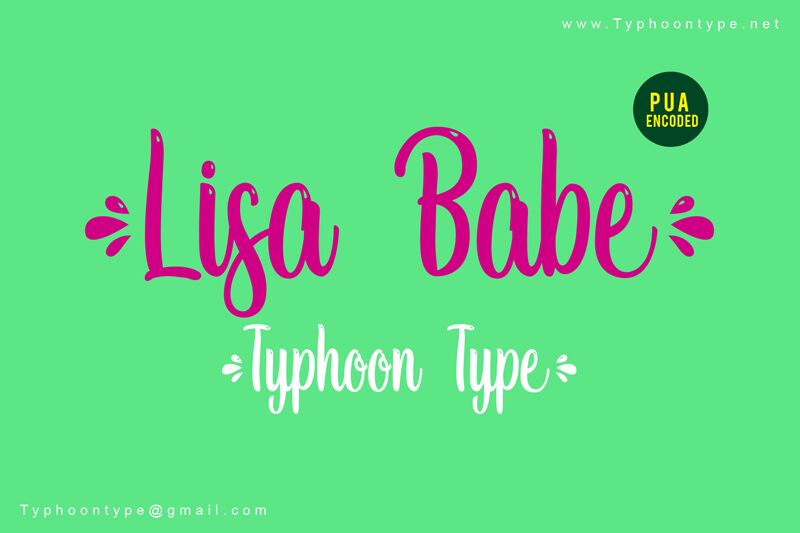
Lisa Babe font is a cute script typeface designed by Typhoon Type - Suthi Srisopha.
Type ( before word to get beginning splash and Type ) after word to get the ending splash.
Example : (Lisa Babe)